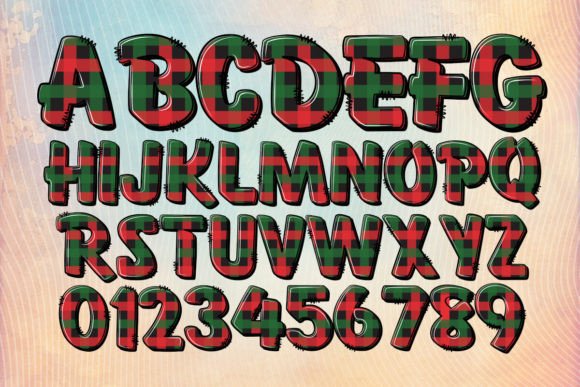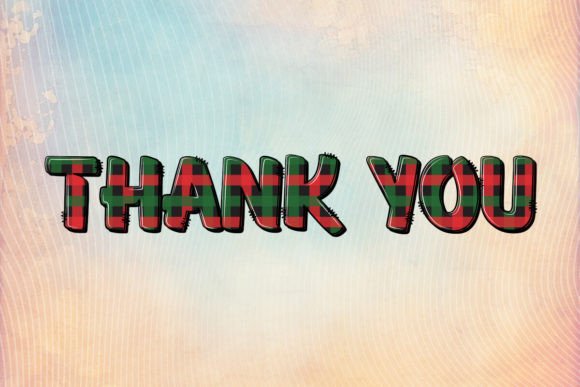
Indulge in the Festive Spirit with Christmas Tartan Font
The holiday season is upon us, and what better way to spread the cheer than with a unique and captivating Christmas font? Introducing Christmas Tartan Font, a typeface inspired by classic holiday textiles that exudes a warm, cozy aura, perfect for fostering a sense of love and family bonding. This delightful font seamlessly unifies traditional and contemporary design elements, making it the perfect addition to your holiday design projects.
A Font that Embodies the Spirit of Christmas
Christmas Tartan Font is rich in history and infused with love, making it the perfect choice for designers and crafters looking to create heart-warming messages, season’s greetings, or stocking stuffer tags. The font’s tartan pattern is reminiscent of traditional Scottish textiles, evoking a sense of nostalgia and warmth. Whether you’re designing for personal use or commercial projects, this font is sure to delight and inspire.
Unleash Your Creativity with Christmas Tartan Font
With Christmas Tartan Font, you can create a wide range of holiday-themed designs, from festive greeting cards and invitations to social media graphics and website headers. The font’s unique blend of traditional and modern elements makes it perfect for designers and crafters looking to add a touch of personality to their projects.
Imagine creating custom holiday gift tags, garlands, or decorations with this beautiful font. The possibilities are endless, and with Christmas Tartan Font, you can add a personal touch to your designs that will make them truly special.
Tips and Tricks for Using Christmas Tartan Font
To get the most out of Christmas Tartan Font, here are a few tips and tricks to keep in mind:
- Experiment with different font sizes and colors to create visual interest and hierarchy in your designs.
- Pair Christmas Tartan Font with complementary fonts to create a unique and eye-catching combination.
- Use the font’s tartan pattern to add texture and depth to your designs.
- Don’t be afraid to get creative and try out new and innovative design ideas!
Christmas Tartan Font is a captivating and unique typeface that’s sure to add a touch of festive magic to your holiday designs. With its warm, cozy aura and seamless blend of traditional and contemporary design elements, this font is perfect for designers and crafters looking to create heart-warming messages, season’s greetings, or stocking stuffer tags.